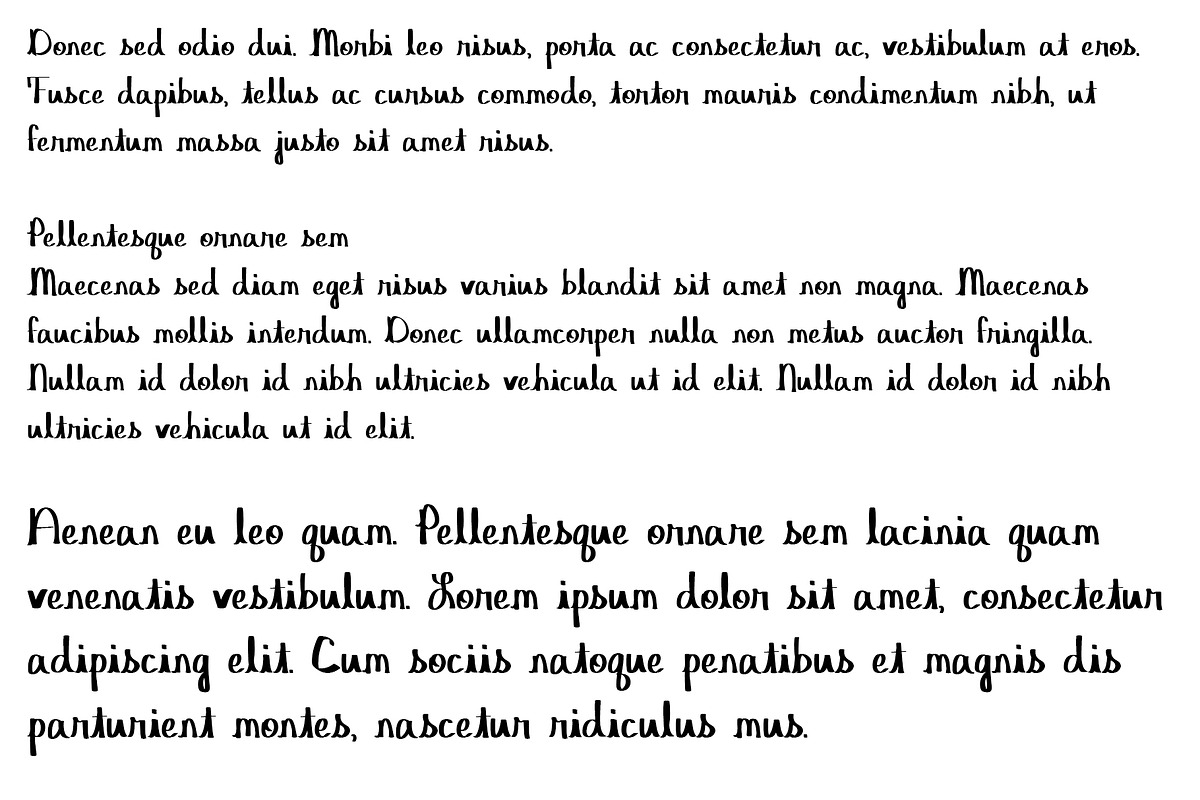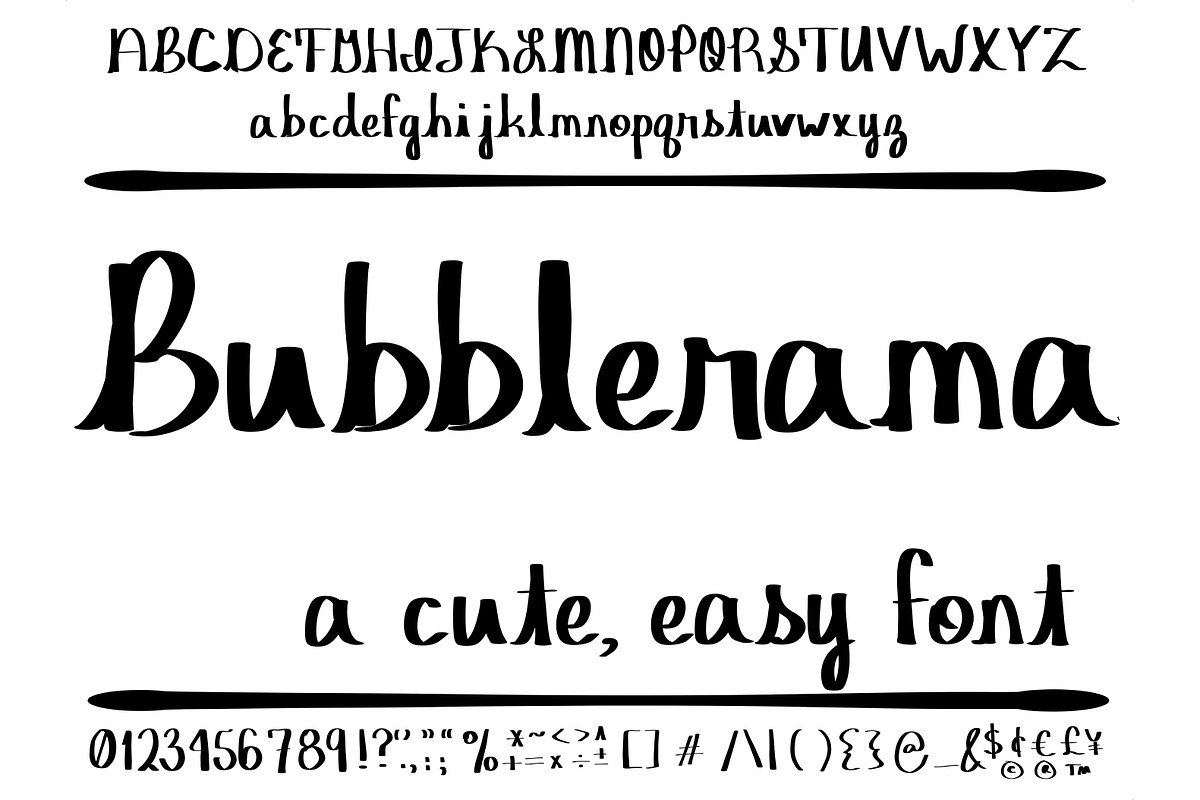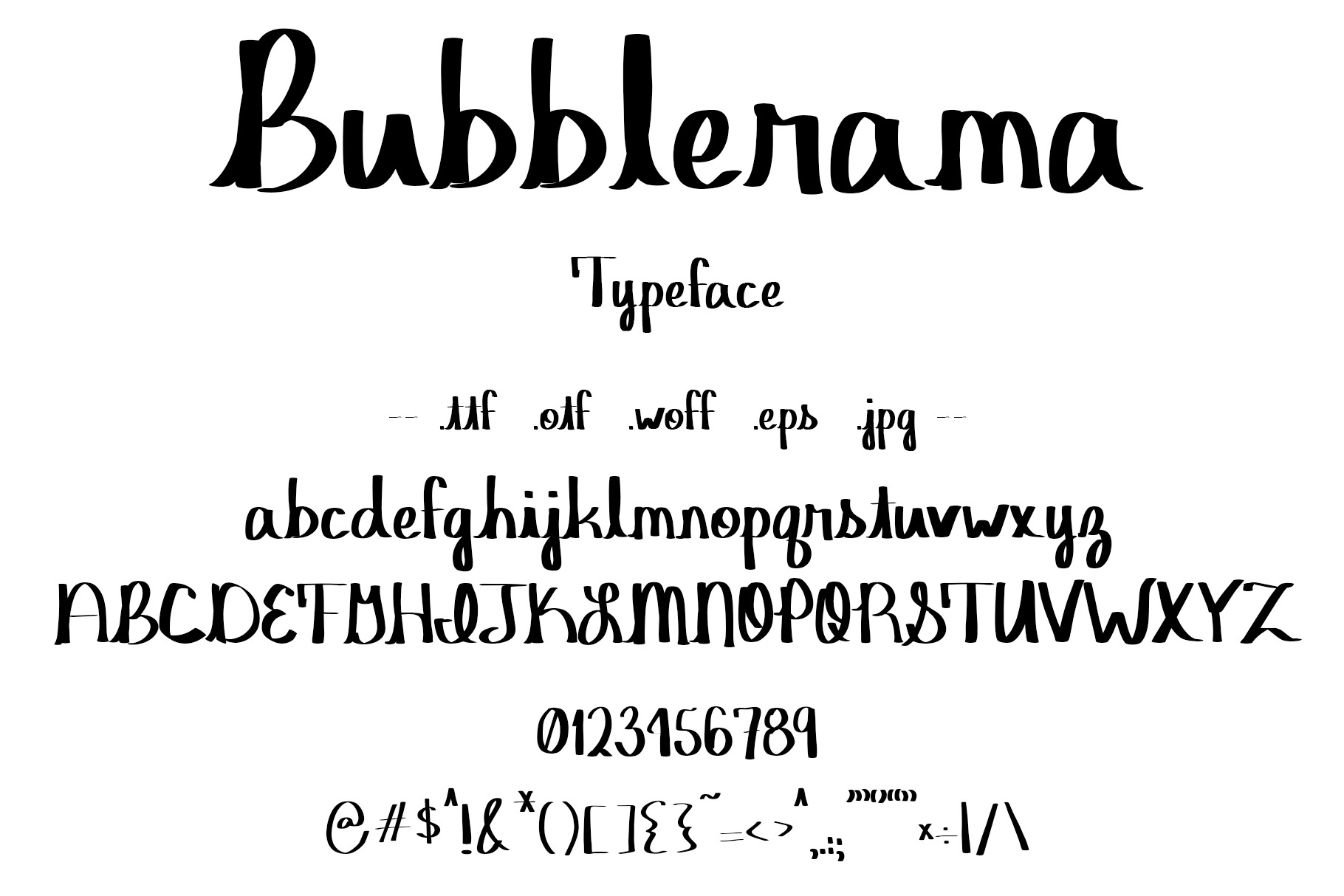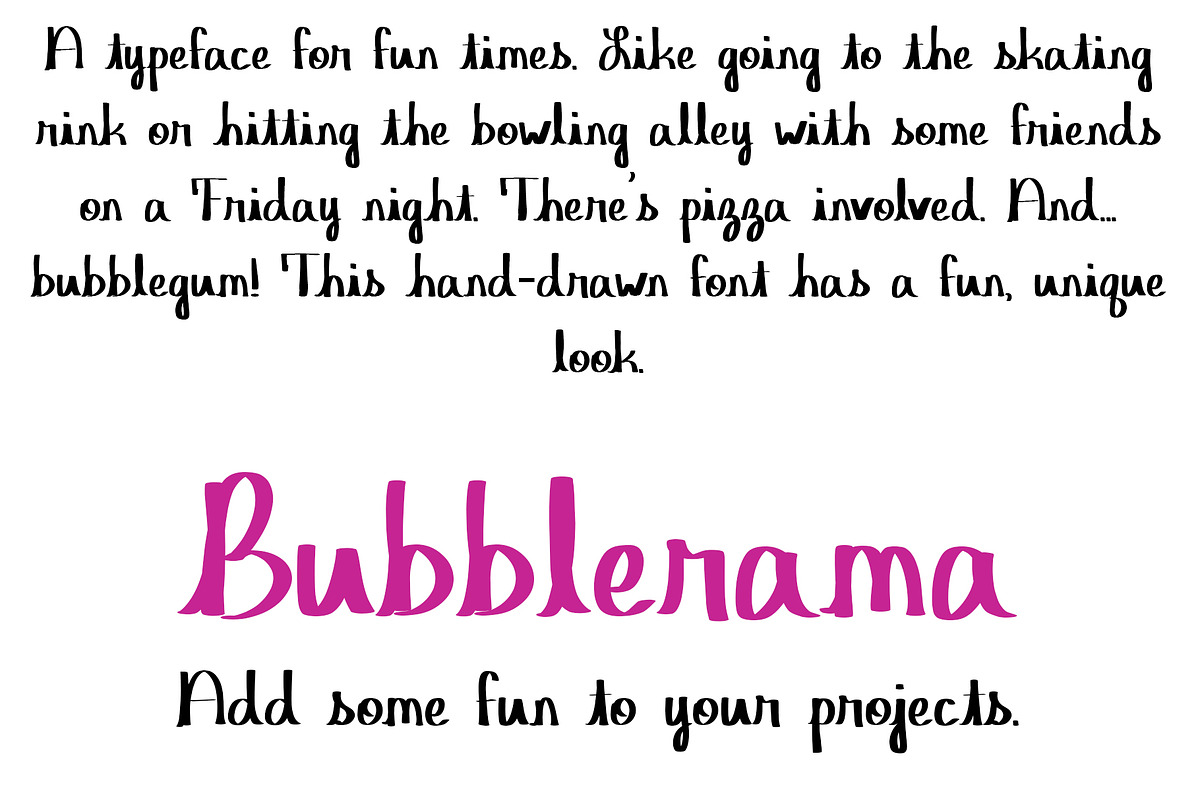
Font Bubblerama Cute Creative Sans
Hand drawn font. Bubblerama typeface has cute, bold, cursive letters and a natural handwriting style. Sans serif with gothic style.